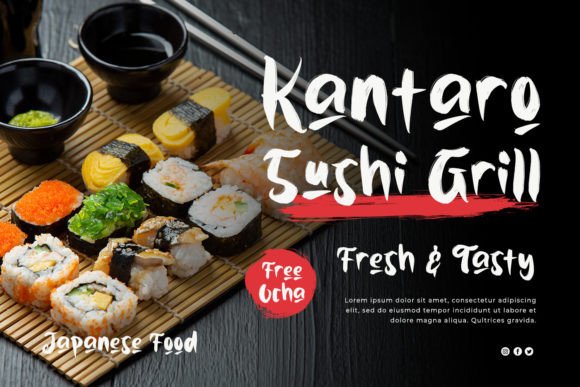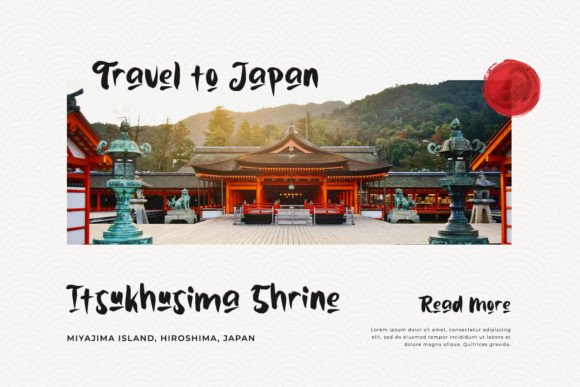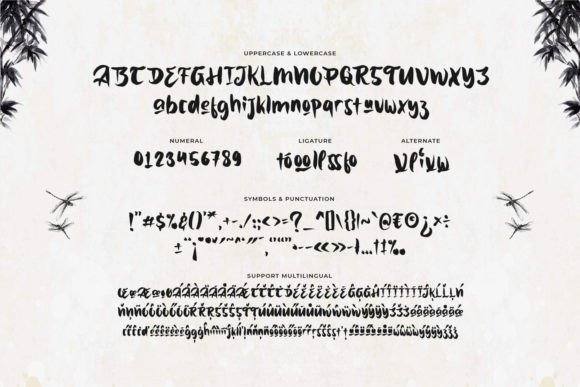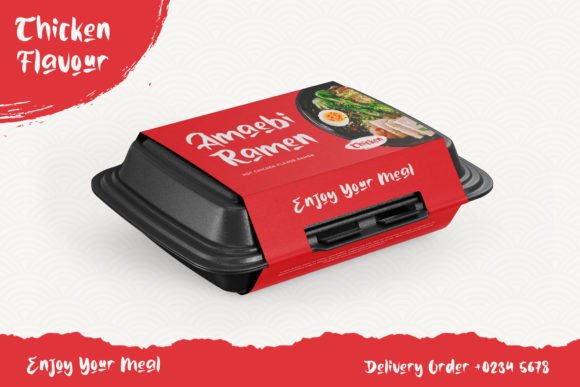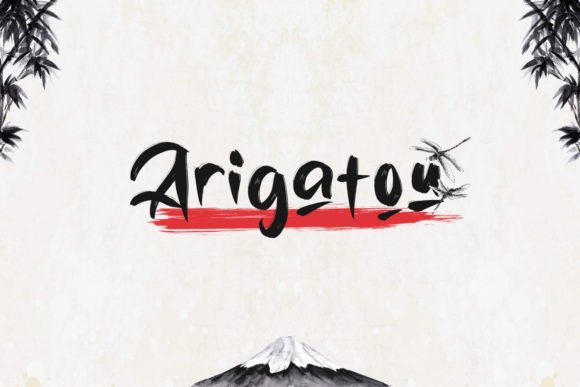
Bomaciato Font: Elevate Your Designs with a Touch of Traditional Japanese Elegance
In the world of typography, fonts play a crucial role in conveying the tone and aesthetic of a design. For creative enthusiasts, designers, and crafters looking to add a unique and stylish touch to their projects, the Bomaciato font is an exceptional choice. Inspired by traditional Japanese calligraphy, Bomaciato is a modern brush display font that brings a fresh and distinctive flair to the table.
The Inspiration Behind Bomaciato
Bomaciato’s design roots are deeply embedded in the ancient art of Japanese calligraphy, known as Shodou. This traditional form of writing has been a cornerstone of Japanese culture for centuries, revered for its beauty, precision, and expressive qualities. By drawing inspiration from these time-honored techniques, Bomaciato manages to capture the essence of Japanese elegance while presenting it in a contemporary and versatile package.
Characteristics of Bomaciato Font
Bomaciato is not just another font; it’s a statement piece for your designs. Its characteristics include:
- Stylish and Unique: The font boasts a one-of-a-kind appearance that can instantly elevate the visual appeal of any project.
- Modern Brush Display: With its brush-like strokes, Bomaciato gives off a modern vibe that’s perfect for headings, titles, and any design element where you want to make a bold statement.
- Inspired by Tradition: While it’s a modern creation, its roots in traditional Japanese calligraphy lend it an air of authenticity and cultural depth.
Using Bomaciato in Your Designs
Whether you’re working on a branding project, crafting a unique invitation, designing a logo, or simply looking to add some personality to your digital content, Bomaciato can be a game-changer. Here are some ideas on how to incorporate it into your work:
- Logos and Branding: Use Bomaciato to create a memorable logo or to brand your marketing materials with a distinctive touch.
- Stationery and Invitations: Add an elegant and sophisticated feel to your stationery, invitations, or greeting cards.
- Web Design: Utilize Bomaciato as a headline font to catch your visitors’ attention and make your website stand out.
- Social Media Graphics: Create engaging social media posts and stories with a stylish font that captures the essence of your message.
Why Choose Bomaciato?
In a sea of fonts, Bomaciato stands out for several reasons:
- Versatility: Despite its specific inspiration, Bomaciato is surprisingly versatile and can fit into a wide range of design contexts.
- Legibility: While it has a unique style, Bomaciato maintains a high level of legibility, making it practical for use in various applications.
- Emotional Connection: Fonts have the power to evoke emotions. Bomaciato, with its cultural background and stylish appearance, can add depth and intrigue to your designs.
Bomaciato is more than just a font; it’s a design element that can transform your projects with its stylish, unique, and modern appeal. Inspired by the traditional beauty of Japanese calligraphy, yet distinctly contemporary, Bomaciato offers the best of both worlds. Whether you’re a professional designer, a crafty DIY enthusiast, or simply someone looking to add a bit of flair to your digital content, Bomaciato is sure to impress. So, why settle for ordinary when you can create something extraordinary with Bomaciato?
Add Bomaciato confidently to your creative ideas and be amazed by the generated outcome!